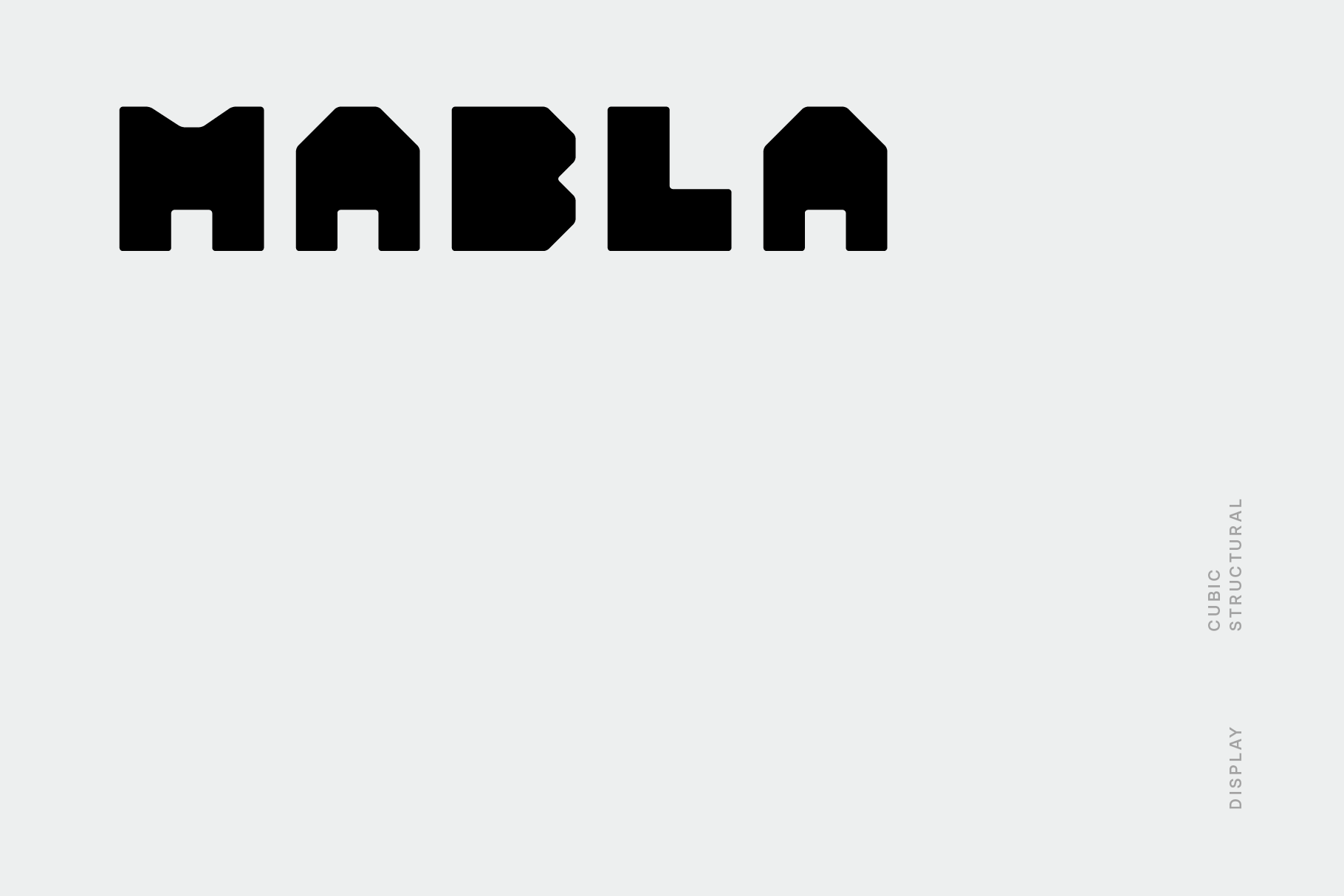
Mabla Font
Mabla is a cubic and playful linear sans apt for headline, editorial, branding, packaging, printed materials and typographic applications. 150+ glyphs with ligatures and fractions provided in opentype .otf and .woff format.